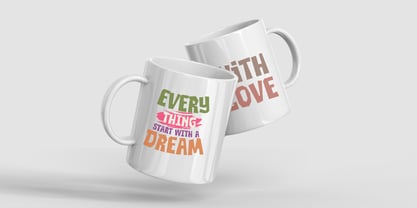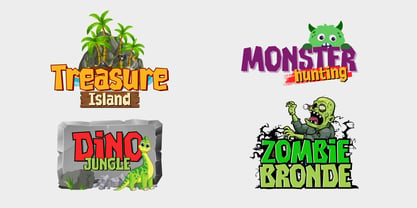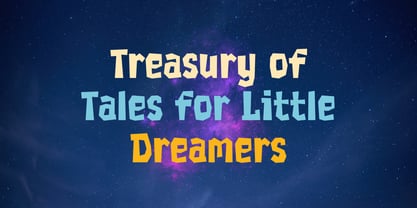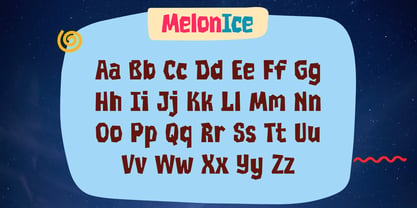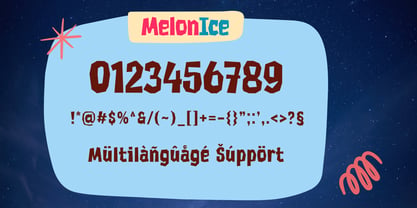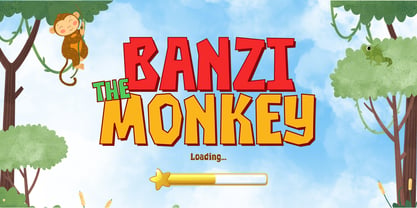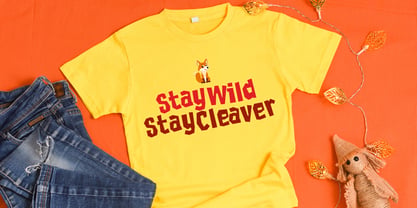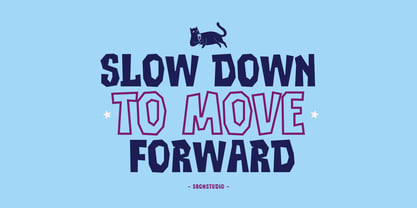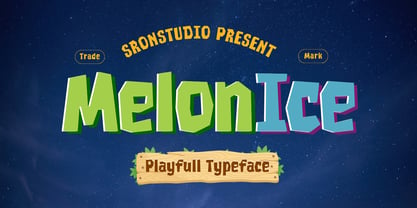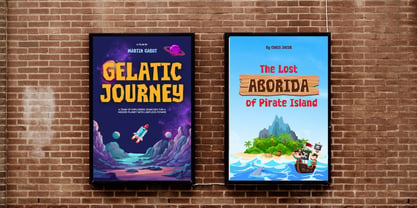
Melon Ice
by Sronstudio
The Melon Ice Font Family was designed by Muhamad Yusron Billah and published by Sronstudio. Melon Ice contains 1 styles. More about this family
Melon Ice is a fun and playful font that brings a fresh and cheerful vibe to your designs. With its rounded shapes and lively character, this font is perfect for children’s books, posters, packaging, branding, and any project that needs a touch of joy and creativity. Whether you're designing for a fun event or a whimsical brand, Melon Ice adds a delightful personality to your work..
- Uppercase & lowercase letters
- Numerals & punctuation
- Multilingual support